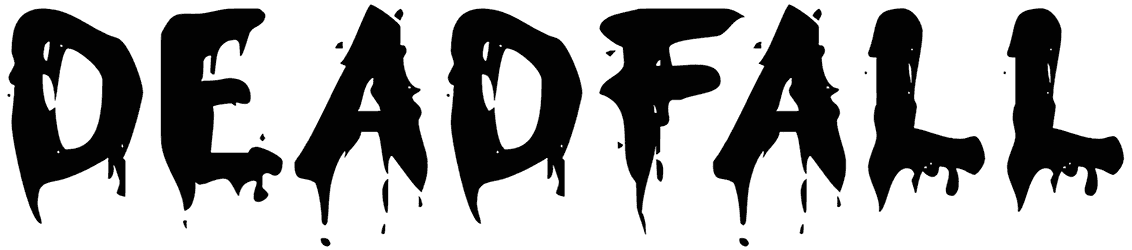
Deadfall Font
Deadfall font doesn’t just look scary; it looks like the title survived something and came back dripping. This blood font carries a monospace structure, regular and italic styles, plus that messy splash texture designers usually spend too long trying to fake by hand.
You can push it straight into slasher movie posters, death metal logos, haunted house flyers, Halloween packaging, or dark game screens. Add grain, red lighting, and a rough black background, and Deadfall starts doing the creepy work before the layout even tries.
Introducing Deadfall, the ultimate horror display font! This Monospace typeface combines the essence of fear with a multilingual twist, boasting a captivating dripped and splash style. With the inclusion of the Cyrillic alphabet, it caters to a global audience. Offering both regular and italic variations, Deadfall is perfect for posters, marketing materials, chilling movie titles, Death metal logotypes, Halloween crafts, and an array of spine-tingling projects. Unleash the terror with Deadfall!